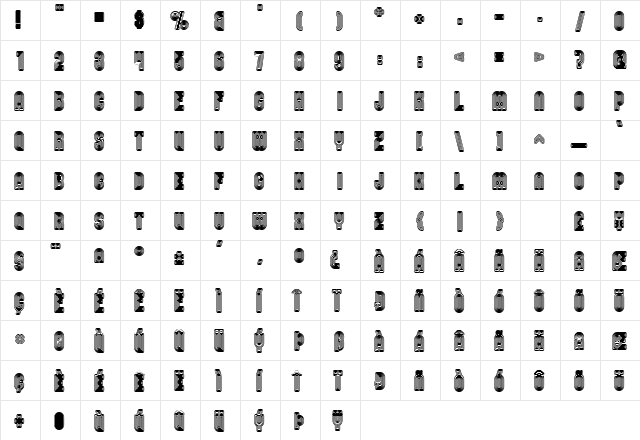
Nomitais Regular Font Preview
Nomitais Regular
Nomitais Regular Font Details
| Foundry | Peter Wiegel |
| Designer | Peter Wiegel |
Design Context for Nomitais Typeface
Nomitais is a composed and adaptable typeface that performs quietly and consistently across a wide range of design contexts.